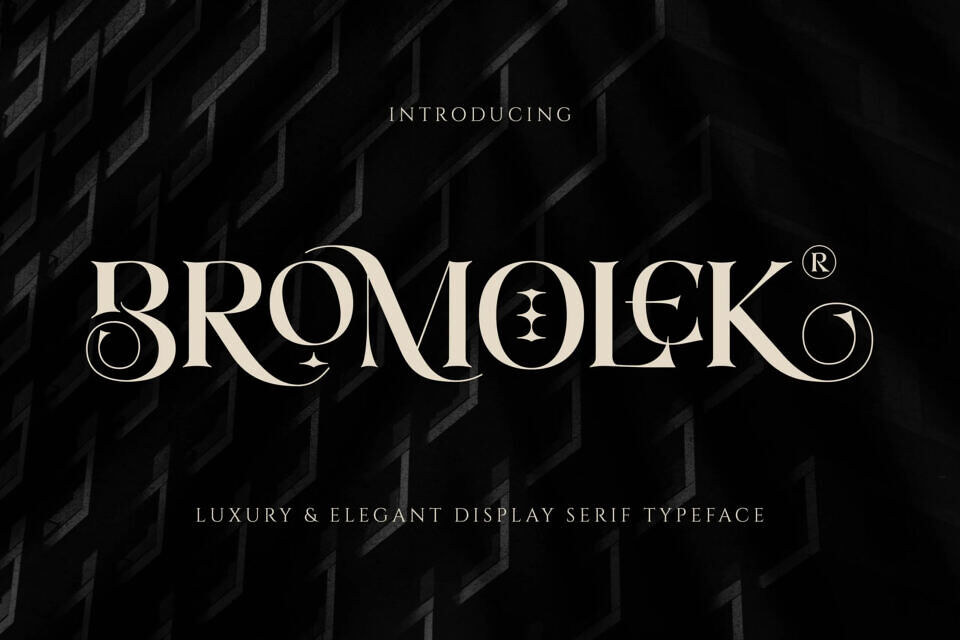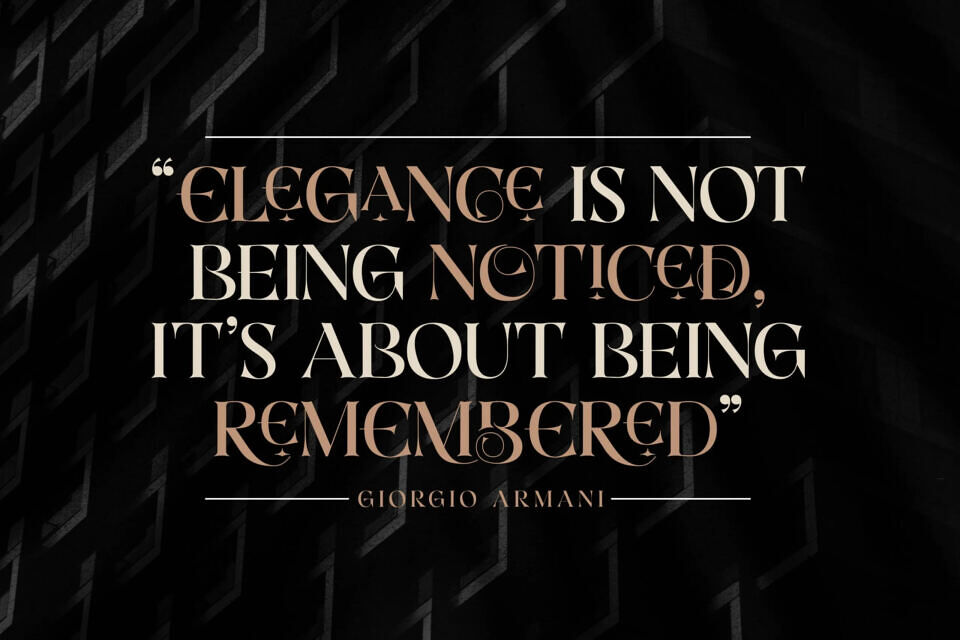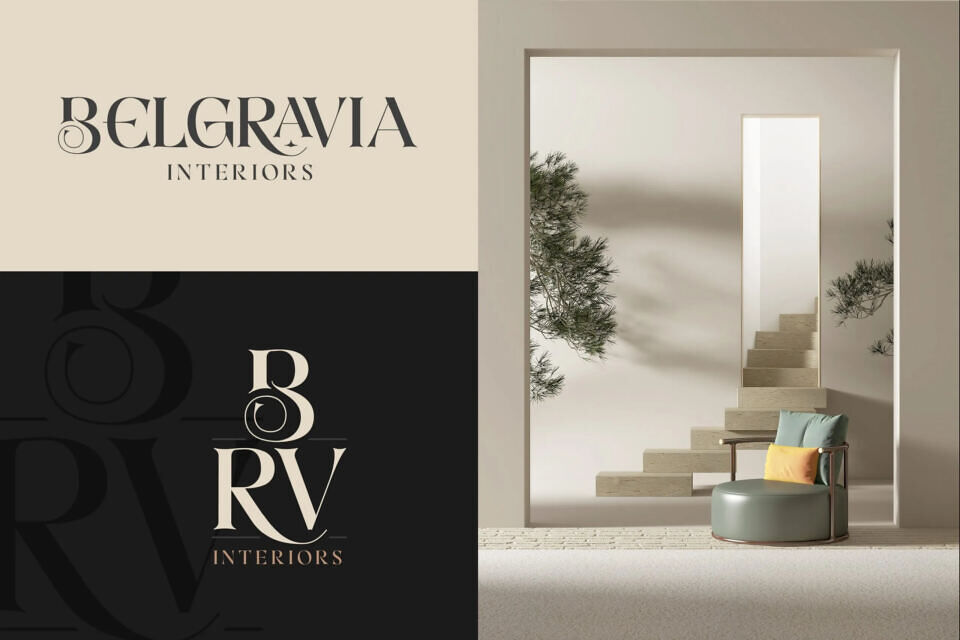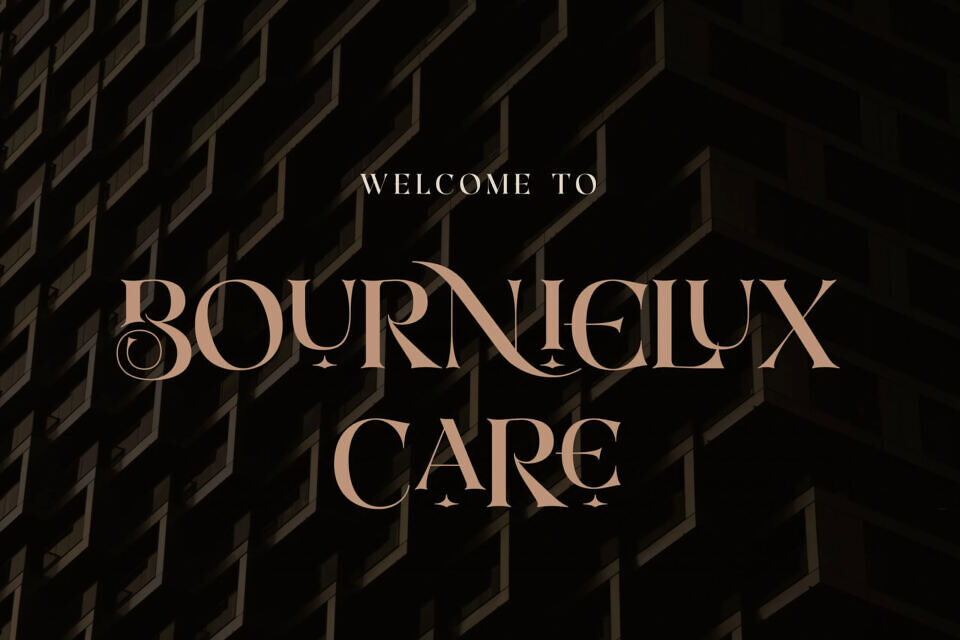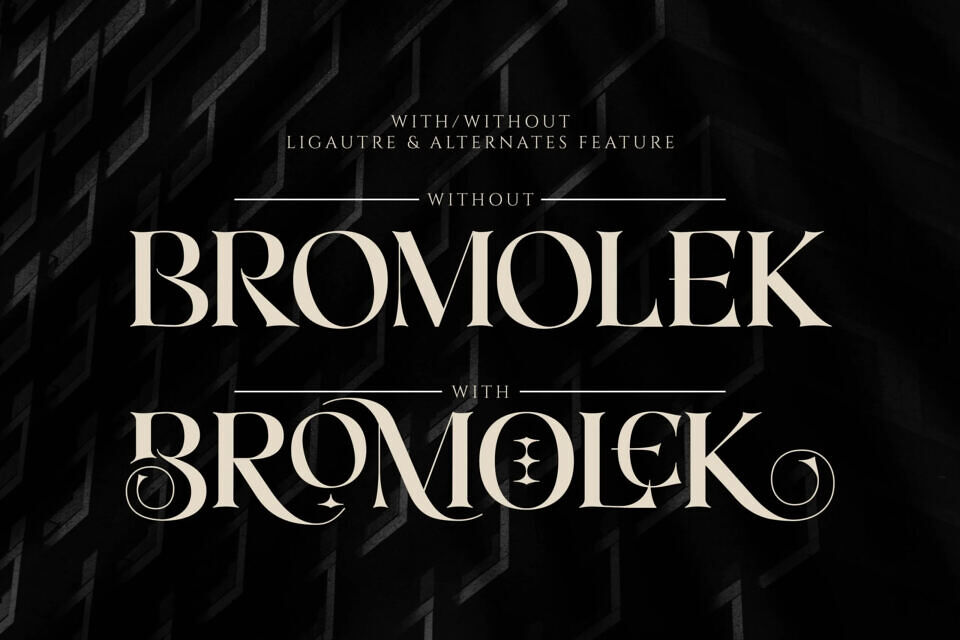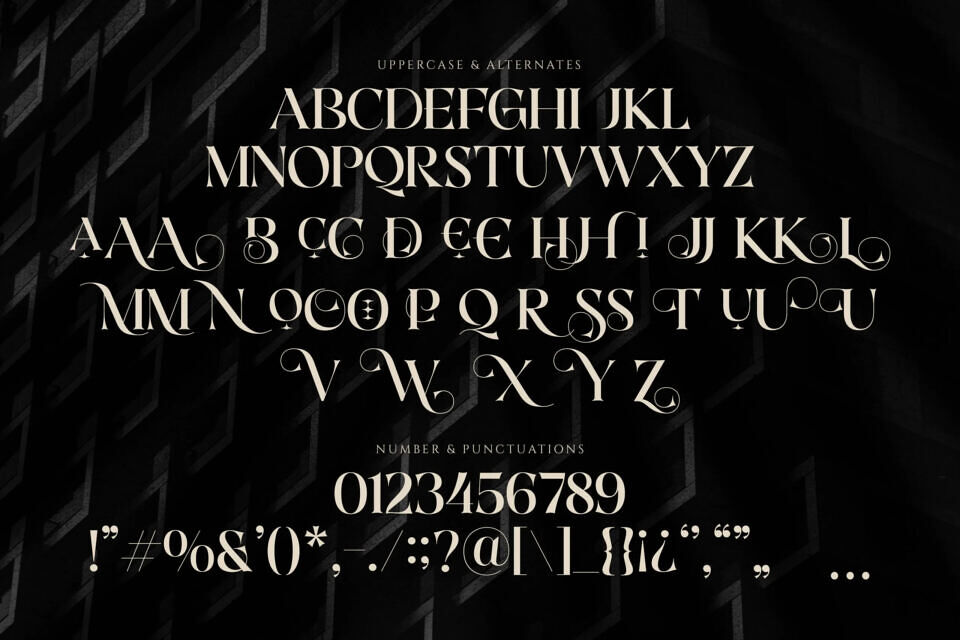
Bromolek Font
Introducing Bromolek – Luxury & Elegant Ligatures Serif, an unique font that uses 27 Alternate 9 ligatures to smoothly link letters.
Inspired by the famous minimalist logo, perfect for the purposes of designing templates, brochures, videos, advertising branding, logos and more. Perfect for adding a unique twist to word-mark logos, monograms or pull quotes.
Designed by: Almarkha Type